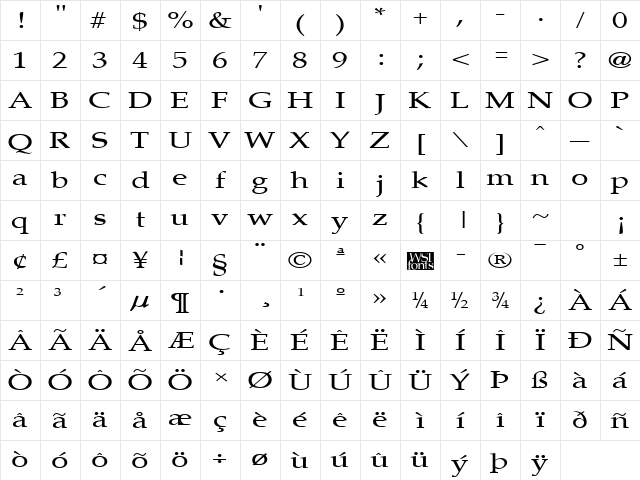
PalisadeBroad Regular
Design Context for PalisadeBroad
PalisadeBroad is a composed and adaptable typeface that performs quietly and consistently across a wide range of design contexts.